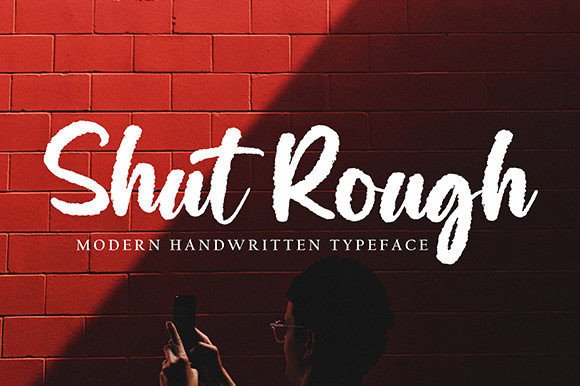
Introducing Shut Rough Font: The Ultimate Rough Script Font for Creative Projects
In the world of typography, fonts play a crucial role in conveying messages, expressing emotions, and creating visual identities. Among the numerous font styles available, script fonts have gained immense popularity for their elegance, sophistication, and versatility. One such font that has caught the attention of designers and creatives is the Shut Rough Font. In this article, we’ll explore the features, benefits, and uses of Shut Rough Font, and why it’s an excellent choice for various projects.
What is Shut Rough Font?
Shut Rough Font is a rough script font that boasts a unique and modern style. Its irregular texture and fluid strokes give it a distinctive look that sets it apart from traditional script fonts. The font’s roughness adds a touch of informality, making it perfect for projects that require a personal and creative touch.
What Can I Use Shut Rough Font For?
Shut Rough Font is an incredibly versatile font that can be used for a wide range of projects, including:
- Quotes: Add a personal touch to inspirational quotes, motivational sayings, or lyrics with Shut Rough Font.
- Logos: Create a unique and memorable logo for your brand, product, or service using Shut Rough Font.
- Blog Headers: Use Shut Rough Font to create eye-catching blog headers that reflect your blog’s personality.
- Posters: Design stunning posters for events, promotions, or advertisements with Shut Rough Font.
- Branding: Establish a consistent visual identity for your brand with Shut Rough Font.
- Letters: Add a touch of elegance and sophistication to formal or informal letters.
- Invitations: Create beautiful and unique invitations for special occasions, such as weddings, birthdays, or graduations.
- Stationery: Use Shut Rough Font to design custom stationery, including notecards, greeting cards, or journals.
Benefits of Using Shut Rough Font
Shut Rough Font offers several benefits that make it an attractive choice for designers and creatives:
- Unique Style: Shut Rough Font’s rough texture and fluid strokes give it a distinctive look that sets it apart from other script fonts.
- Versatility: The font’s versatility makes it suitable for a wide range of projects, from formal to informal.
- Ease of Use: Shut Rough Font is easy to read and understand, making it perfect for projects that require clear communication.
- Customization: The font’s rough texture allows for creative customization, making it easy to adapt to your project’s specific needs.
Tips for Using Shut Rough Font Effectively
To get the most out of Shut Rough Font, follow these tips:
- Pair with Other Fonts: Combine Shut Rough Font with other fonts to create a unique and visually appealing typography.
- Adjust Font Size: Experiment with different font sizes to create visual hierarchy and emphasize important information.
- Play with Colors: Use Shut Rough Font with different colors to add contrast and create a bold statement.
- Experiment with Effects: Add texture, gradient, or other effects to Shut Rough Font to give it a unique look.
Best Practices for Using Shut Rough Font
To ensure you get the best results with Shut Rough Font, follow these best practices:
- Use for Display Purposes: Shut Rough Font is best used for display purposes, such as headlines, titles, or quotes.
- Limit Body Text: Avoid using Shut Rough Font for body text, as it may be difficult to read in large blocks.
- Be Mindful of Legibility: Ensure that Shut Rough Font is legible and easy to read, especially when used in smaller sizes.
Shut Rough Font is a unique and versatile rough script font that offers a fresh perspective on typography. Its irregular texture and fluid strokes make it perfect for a wide range of projects, from quotes and logos to blog headers and posters. By following the tips and best practices outlined in this article, you can effectively use Shut Rough Font to add a personal touch to your creative projects.